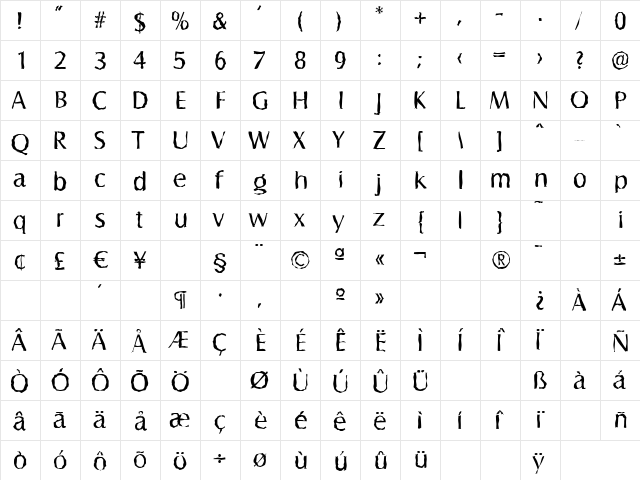
SalzburgRandom Regular
Design Context for SalzburgRandom Typeface
SalzburgRandom takes a measured approach to typography — its balanced proportions and neutral character make it a reliable workhorse for both digital and print work.